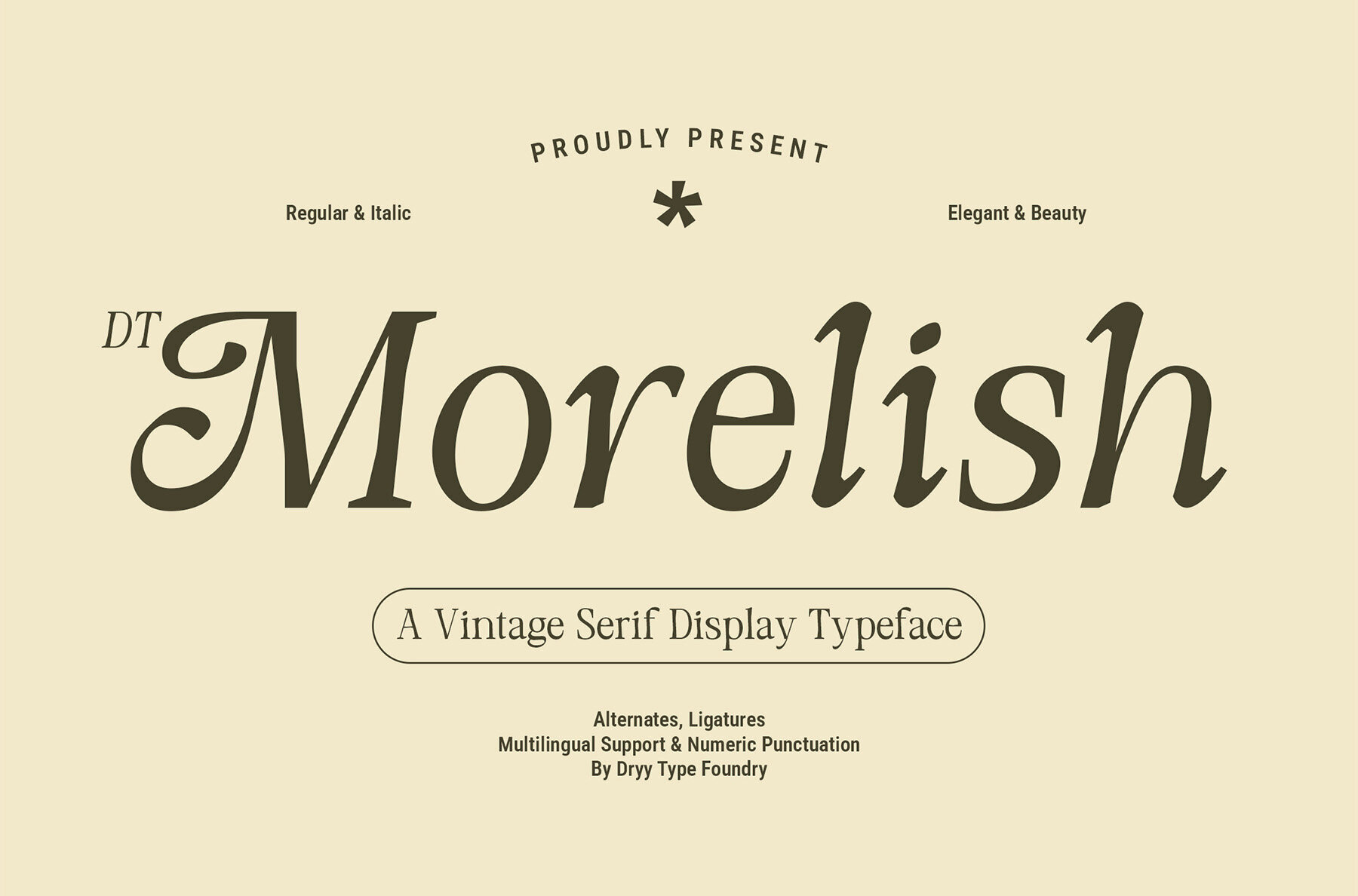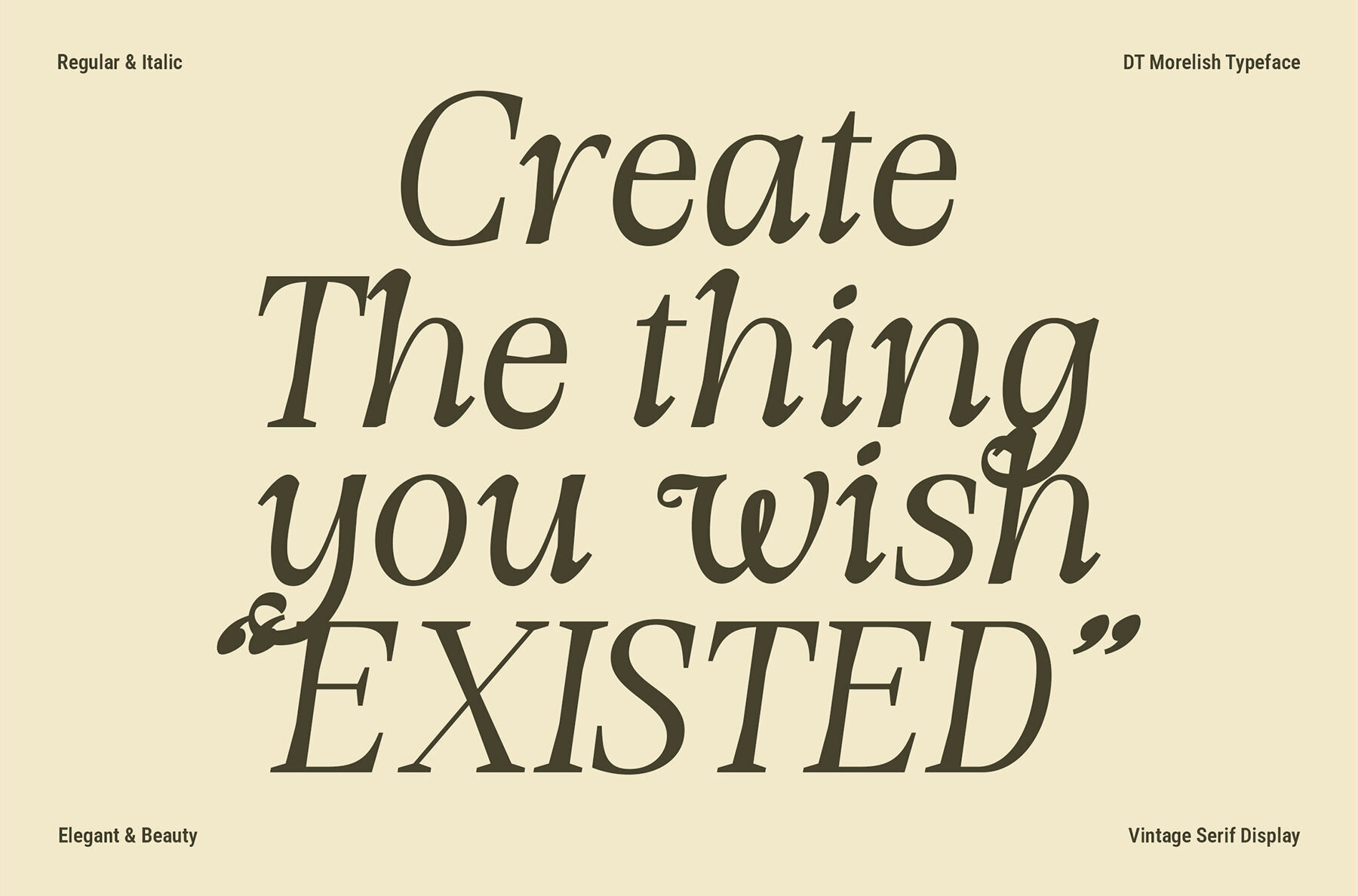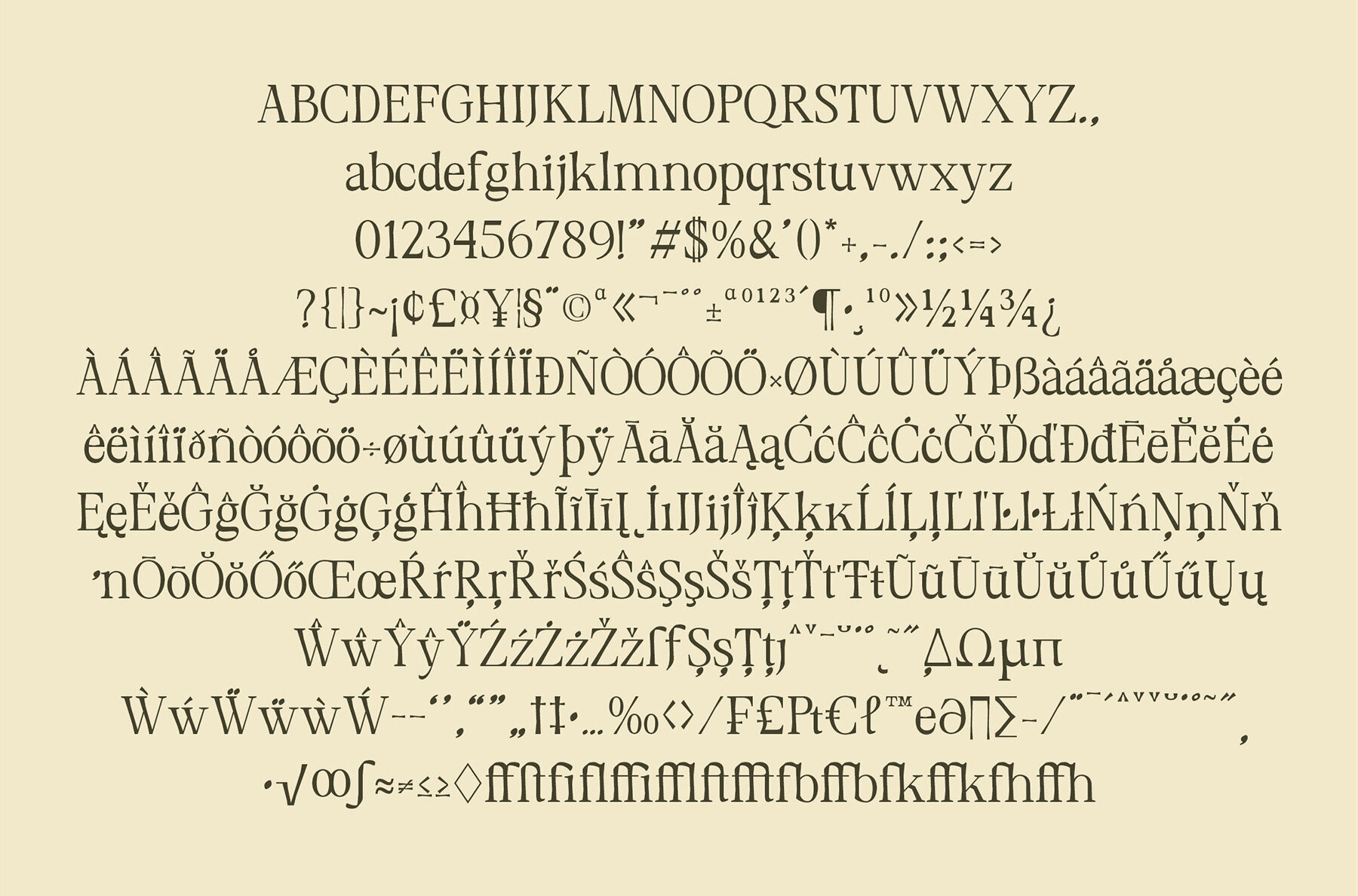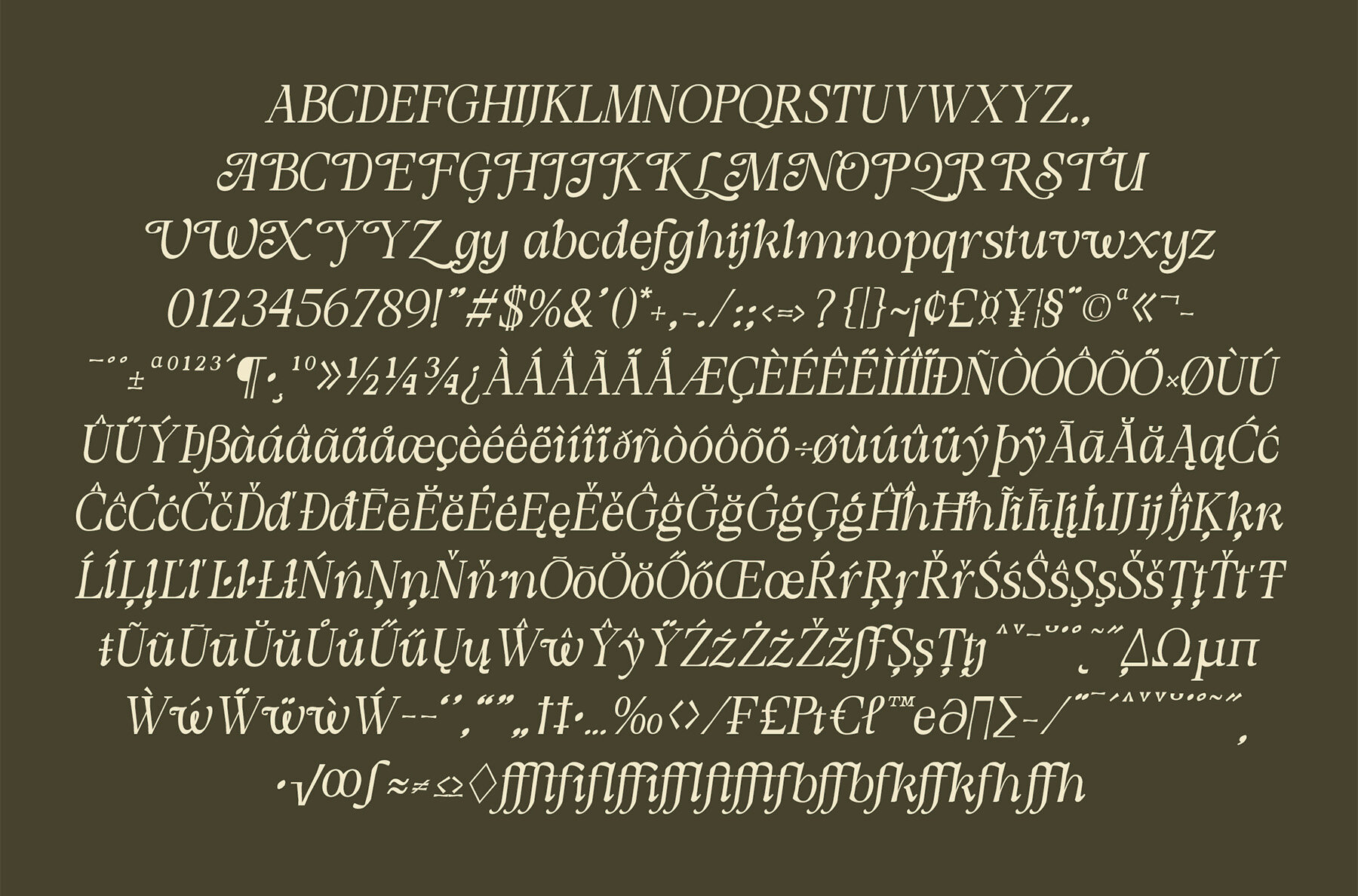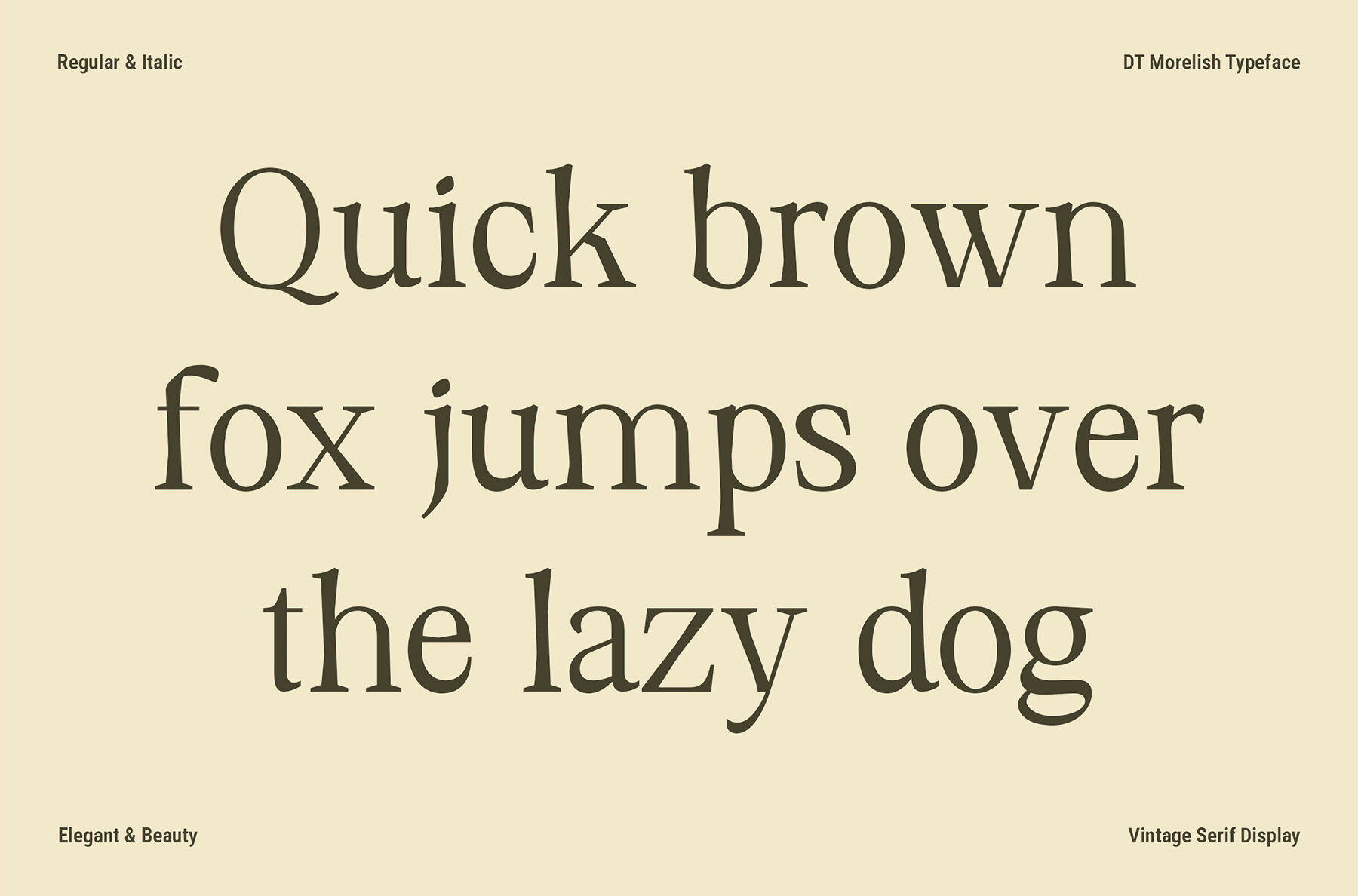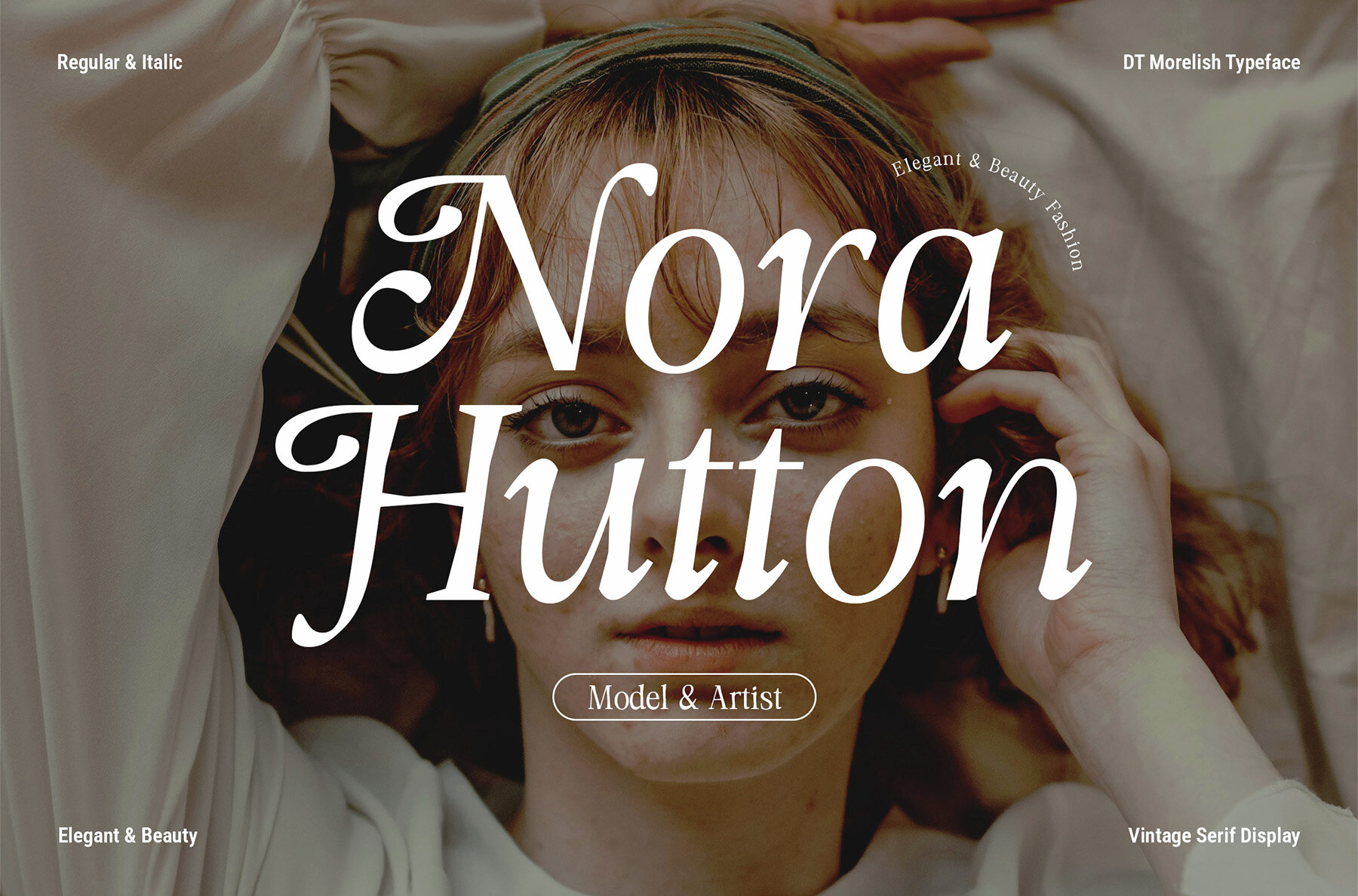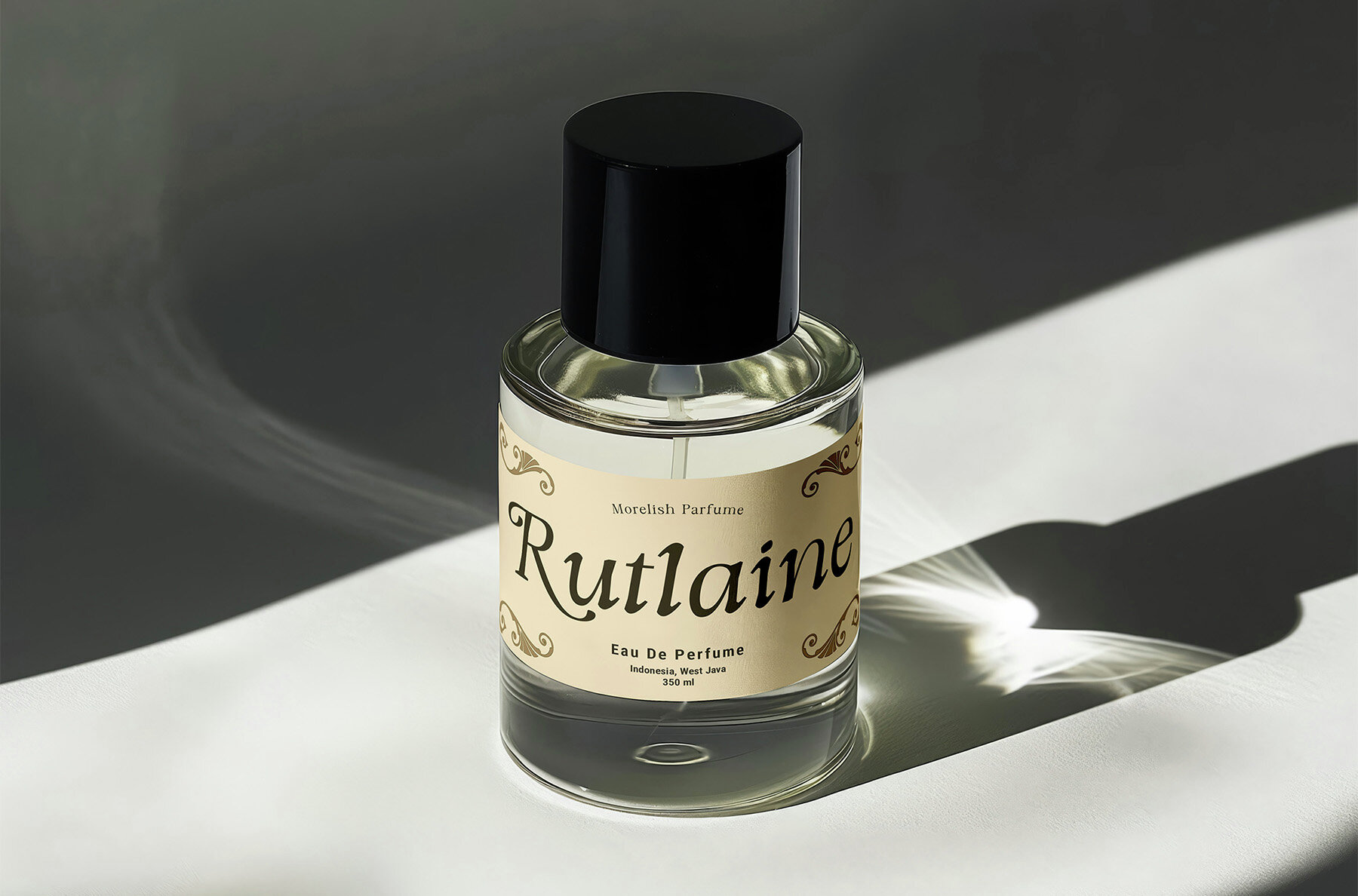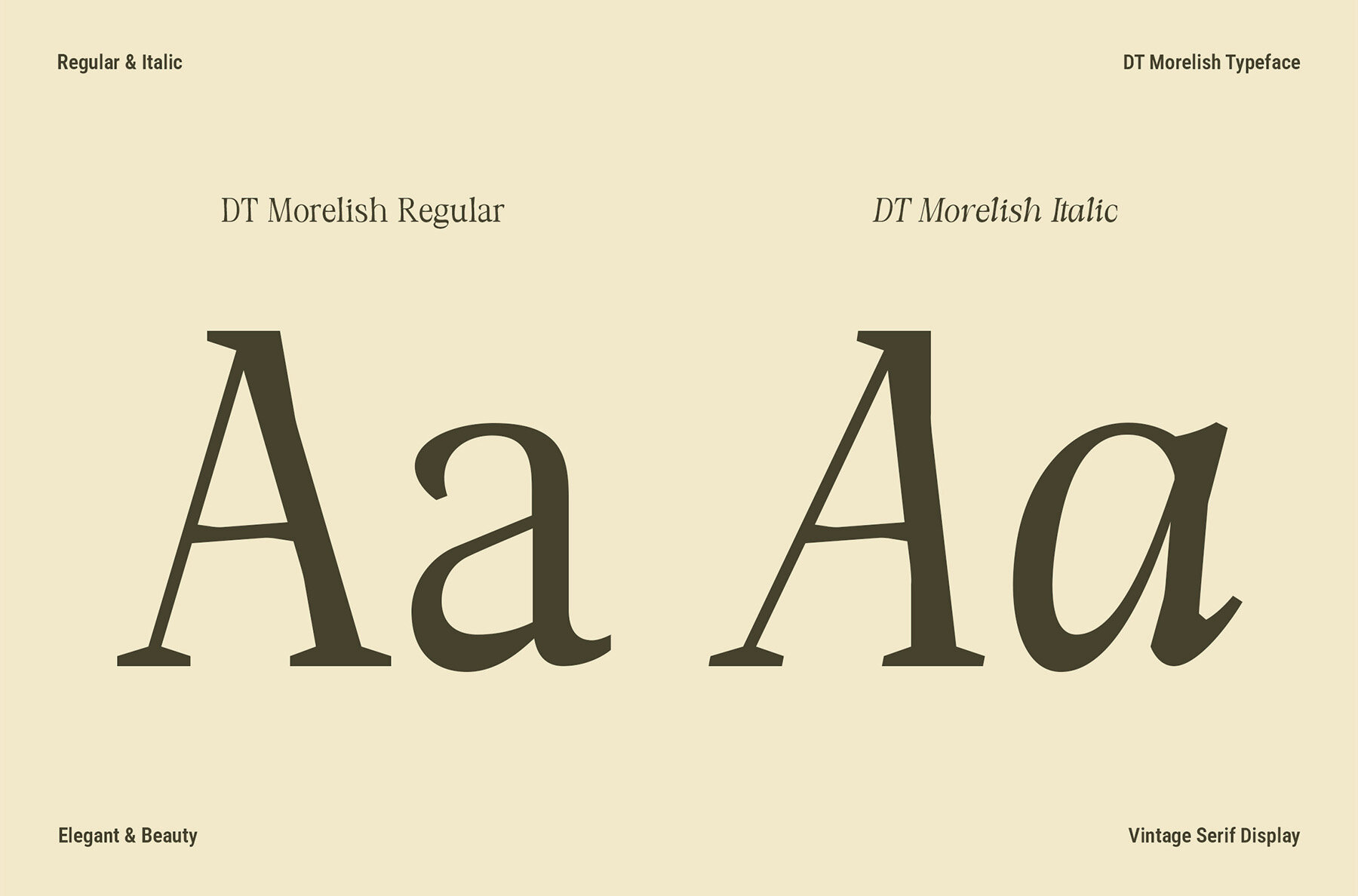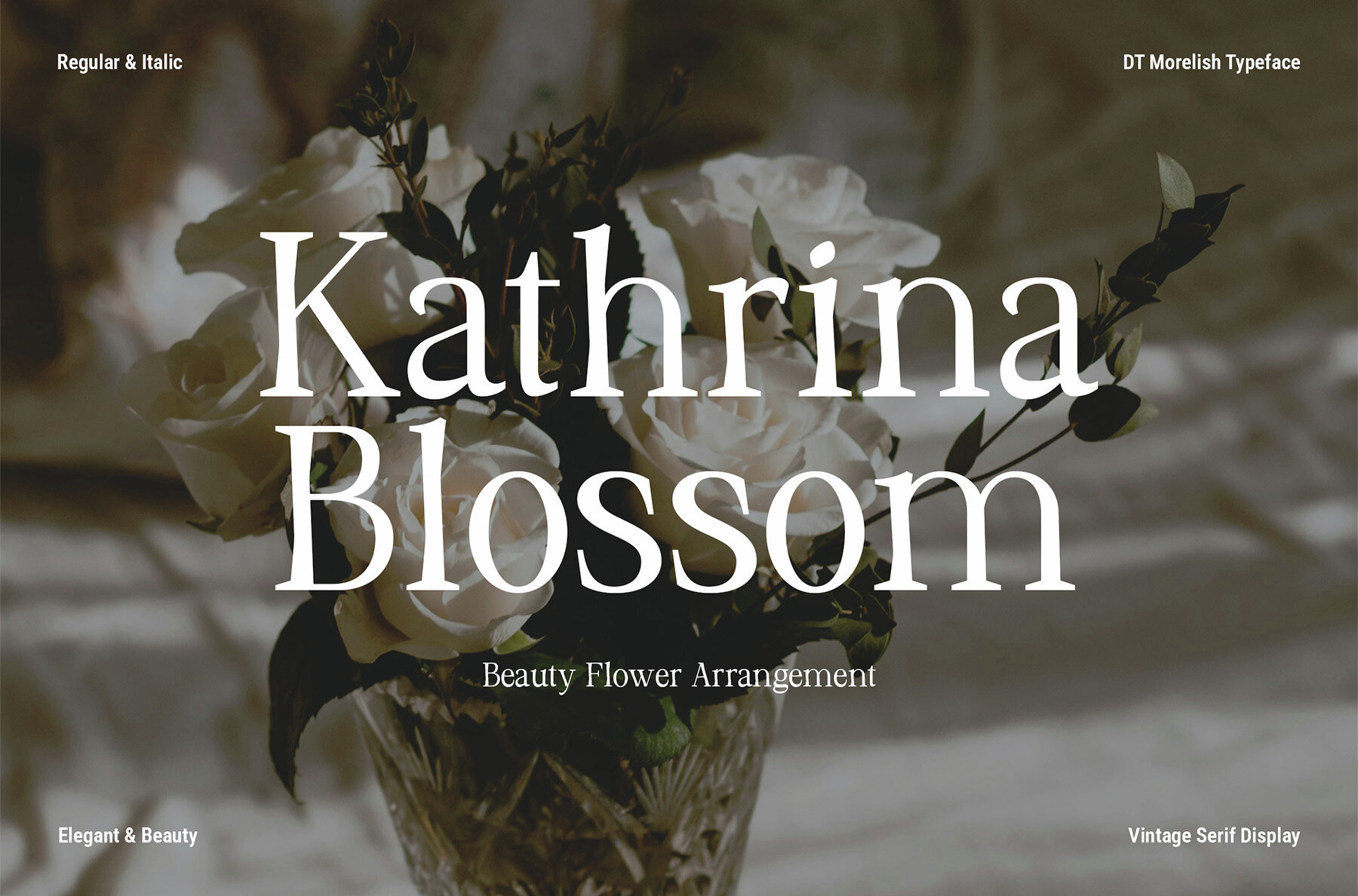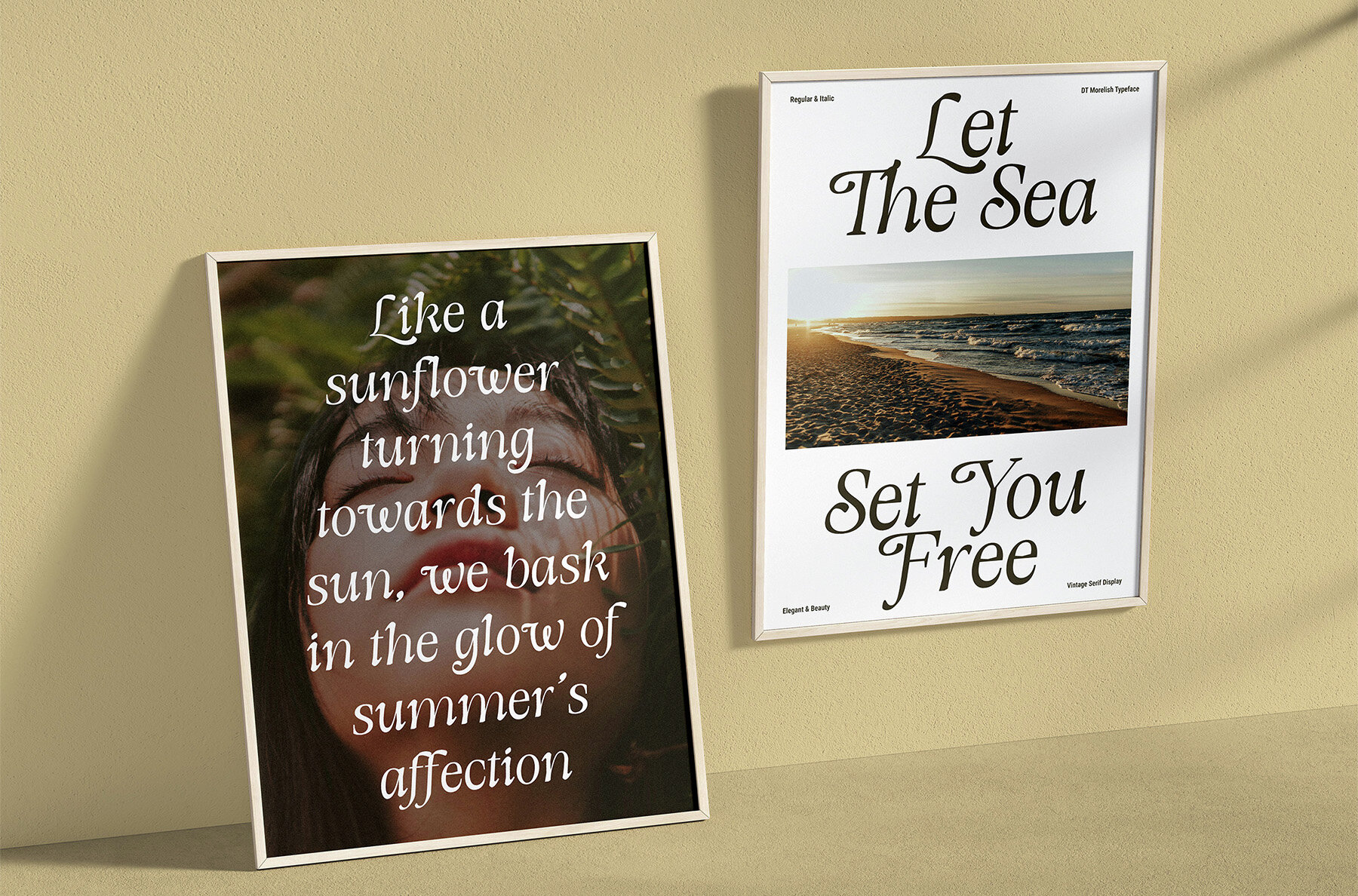
DT Morelish Font
DT Morelish Regular
DT Morelish Italic
Inspired by the organic form of a tree, DT Morelish offers a unique take on vintage serif typography. Its distinct irregularities evoke a sense of timeless elegance, adaptable for both physical and digital designs. This versatile font shines in a multitude of creative contexts, lending a touch of nostalgia and sophistication to your projects.DT Morelish: An Elegant Vintage Serif